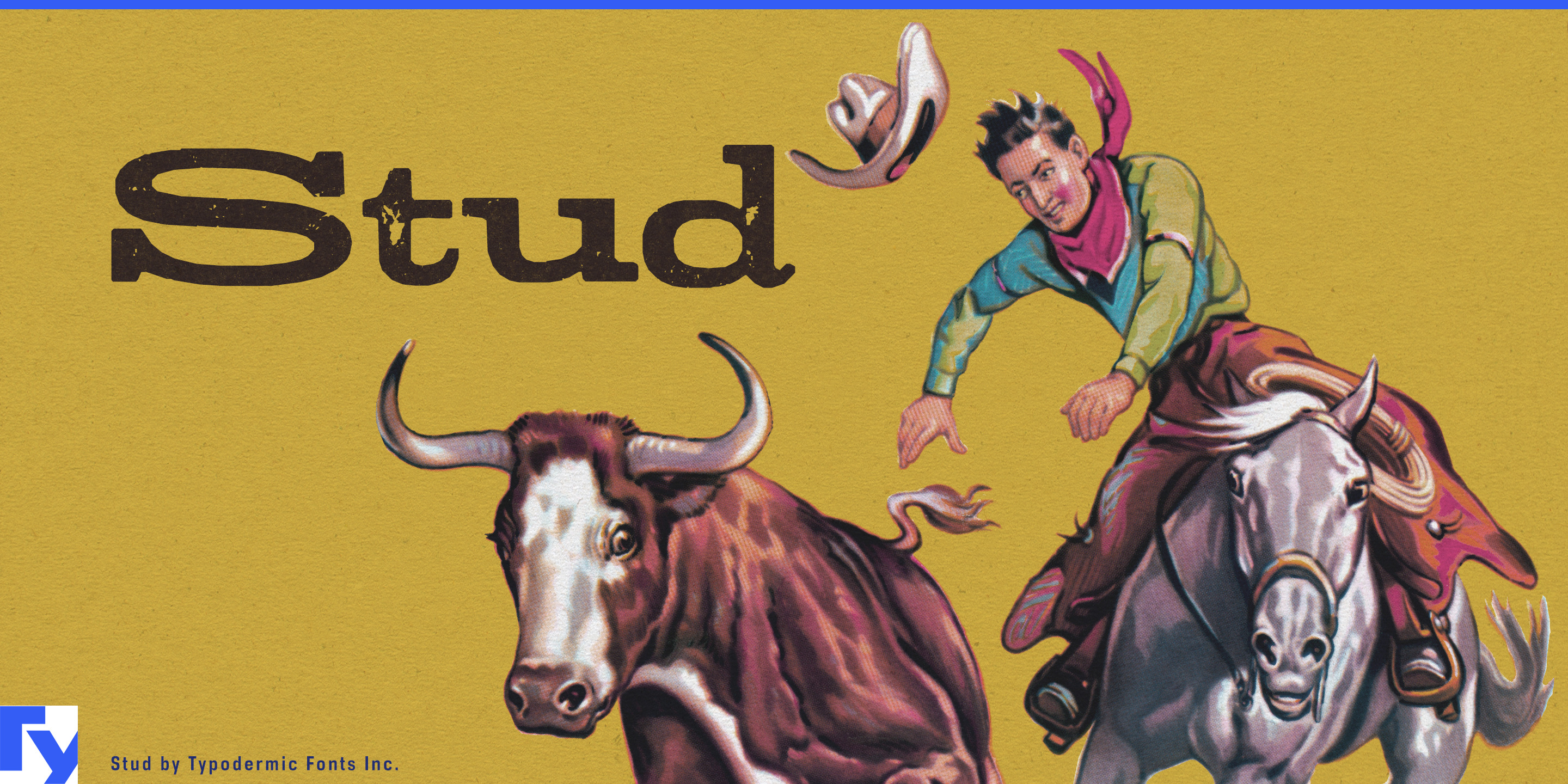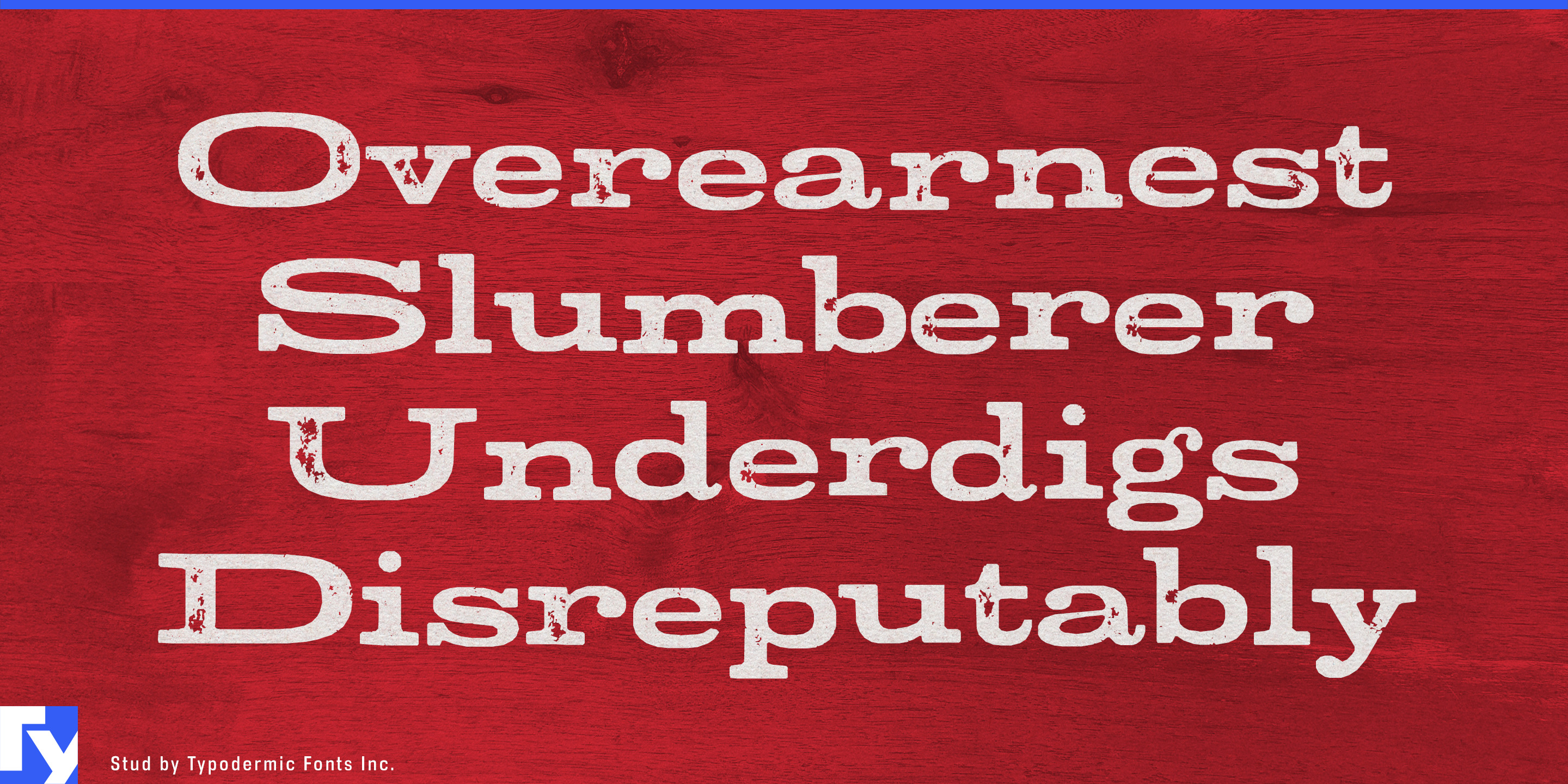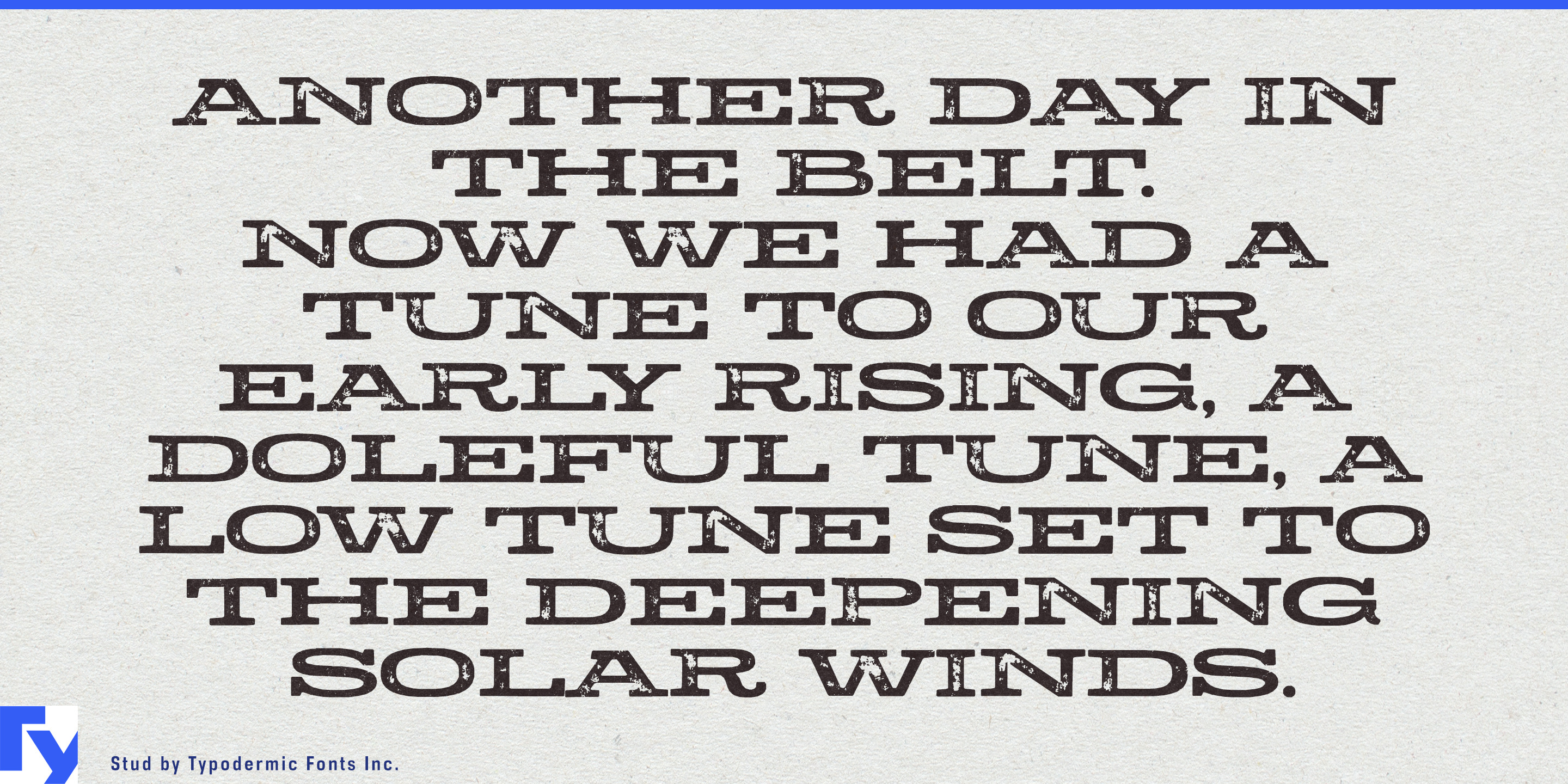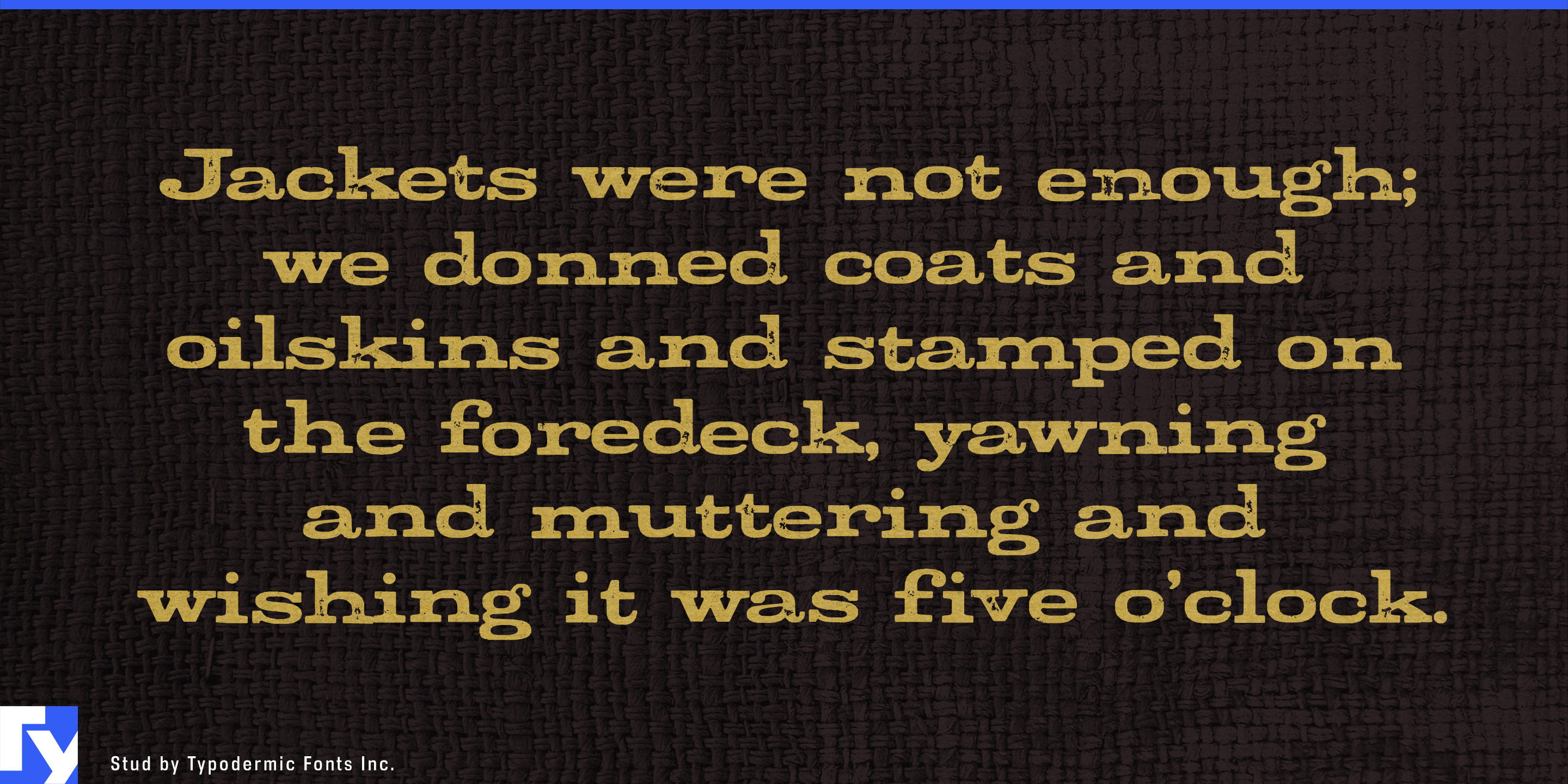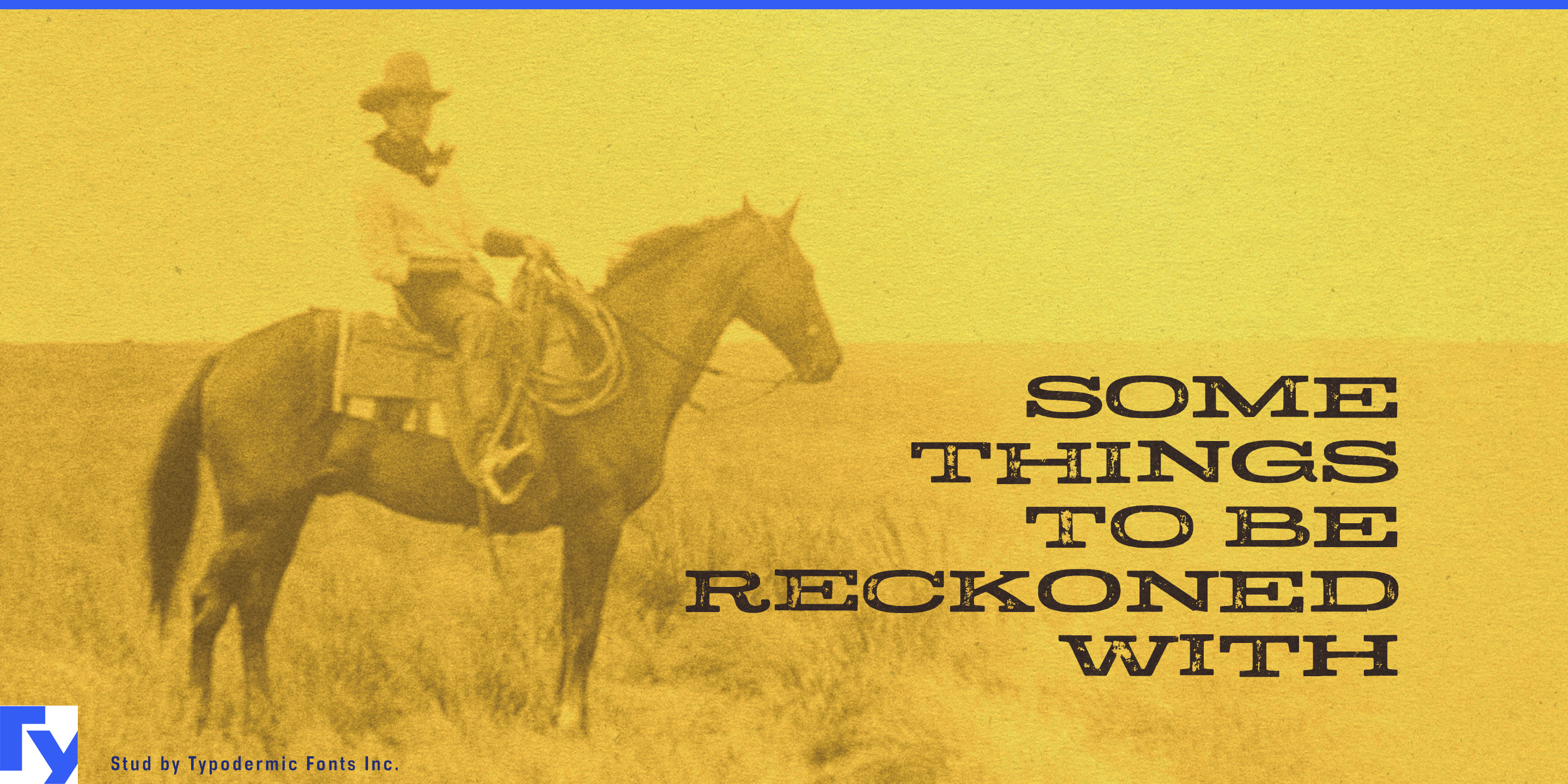
Stud
Stud takes the Western slab serif and turns the dial well past sensible. Its extra-wide stance, oversized Clarendon-style slabs, and stamped letterpress texture give it the bulk and comic bravado of cowboy lettering enlarged for spectacle. It works best when the Western reference is meant to be loud, theatrical, or knowingly exaggerated rather than historically restrained.
Rodeo and arena graphics are a natural fit. Bull riding, championship rodeos, agricultural fairs, and Western entertainment events can use Stud for event names, arena entrances, division titles, broadcast graphics, sponsor backdrops, ticket campaigns, competitor merchandise, and oversized shirt backs. Its broad proportions have the impact of sports lettering while the distressed surface keeps the result firmly in cowboy territory.
Barbecue gives that same bravado somewhere equally useful to go. Smoker manufacturers, competition teams, restaurant groups, rub and sauce companies, jerky brands, and outdoor-cooking businesses can use Stud for smoker model names, brisket specials, spice blends, sauce varieties, butcher-paper graphics, takeaway cartons, pitmaster shirts, and trade-show displays. Short names involving smoke, heat, beef, and excess suit its proportions particularly well.
Stud also works for Western lifestyle apparel, honky-tonks, country-music merchandise, and entertainment-driven ranch properties. Collection names, trucker caps, jacket patches, boot-box graphics, stage backdrops, tour shirts, chuckwagon dinners, barbecue pavilions, general stores, and souvenir graphics can all use its amplified cowboy shorthand without pretending to be nineteenth-century artifacts.
Beef jerky, barbecue chips, hot sauces, grilling seasonings, and other packaged foods with room for humor can push the effect further through product-line names, flavor titles, promotional bursts, and seasonal editions. Substitutions vary common letter combinations, helping the distressed texture avoid some of the mechanical repetition that can betray digitally typeset wear.
Stud is Western typography with the restraint removed: wide, battered, slightly ridiculous, and built for places where the cowboy dial can stay turned up.